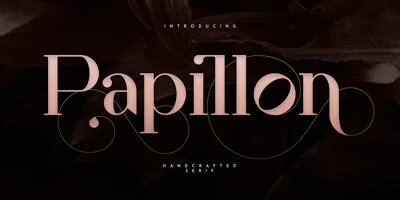
Papillon VP Font
The Papillon VP Font is a beautifully elegant and often whimsical display typeface, characterized by its delicate, flowing lines and a sophisticated, almost ethereal charm, reminiscent of butterflies ("papillon" in French) and graceful artistic expression. Imagine its exquisite characters gracing luxury fashion editorials, adding an exclusive flair to high-end beauty product branding, or creating captivating titles for romantic novels and artistic portfolios. Its intricate yet subtle forms, gentle curves, and balanced proportions also make it an excellent choice for elegant website typography, prestigious invitations, minimalist product packaging, and any design where a touch of understated beauty and refined clarity is desired. Whether you're aiming for a sleek, modern look or a classic design infused with subtle innovation, Papillon VP Font delivers with its unique artistry, ensuring your visuals are both distinguished and truly memorable.
What makes Papillon VP Font so exciting is its remarkable ability to convey sophistication and a sense of effortless grace, much like the delicate fluttering of a butterfly. It offers designers the power to infuse their projects with a deep sense of elegance and refined artistry, while maintaining exceptional readability across various mediums. It’s more than just a typeface; it’s a design element that can instantly set a luxurious and aspirational tone for a project, making content feel more exclusive and meticulously crafted. Designers will find it an invaluable asset for creating visuals that truly resonate with an audience seeking elegance, subtle depth, and a touch of modern allure. For those who appreciate refined beauty, the Papillon VP Font is an excellent opportunity.
The Papillon VP Font family is typically structured to offer a range of styles that amplify its elegant and artistic appeal. Beyond the foundational Papillon VP Regular, the family often includes a rich spectrum of options such as Papillon VP Light for a more delicate touch, Papillon VP Medium for balanced emphasis, and Papillon VP Bold for stronger headlines. Each of these weights usually comes with corresponding Papillon VP Italic versions, adding a graceful slant. Professional versions often include an extensive character set, ligatures, small caps, and various numeral styles, providing immense flexibility for sophisticated typesetting and complex editorial layouts. These diverse family members ensure that designers can create intricate and harmonious typographic systems, maintaining a consistent and elegant aesthetic from detailed body text to refined headlines.